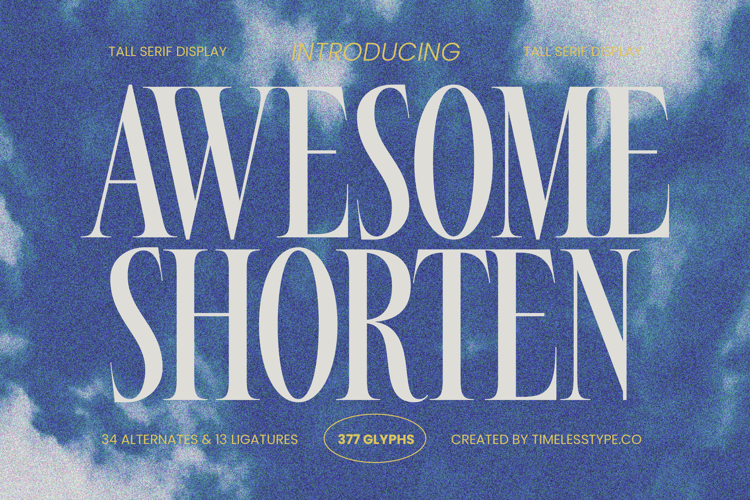
Awesome Shorten - Tall Serif Display
Elevate your designs with unparalleled sophistication. Introducing Font Awesome Shorten - Tall Serif Display Serif Display, a striking display serif typeface crafted to command attention. Its inherent elegance instantly imbues any project with a sense of refined luxury. Designed for impactful headlines and influential branding, this font blends classic grandeur with a modern, clean aesthetic, an indispensable asset for discerning creatives.
Experience the power of exquisite detail and versatility. Font Awesome Shorten - Tall Serif Display boasts a magnificent high-contrast structure, featuring slender strokes and delicate, sharp serifs for a captivating visual rhythm. Offering 34 alternates and 13 ligatures across its 377 glyphs, it provides exceptional creative freedom to sculpt unique and memorable typographic expressions.
Discover the perfect typographic solution for premium visual identities. Font Awesome Shorten - Tall Serif Display is ideally suited for projects demanding class and distinction. It is perfect for luxury branding, high-end packaging design, sophisticated editorial layouts, elegant website headers, and exclusive invitations. This font delivers an authoritative yet approachable voice.
Unleash your creativity on a global scale. With its extensive multilingual support, Font Awesome Shorten - Tall Serif Display adapts seamlessly across global markets, making it incredibly versatile for international projects. This comprehensive coverage ensures your brand narrative resonates universally, maintaining its distinctive character. Transform your designs into iconic statements of elegance and professionalism.